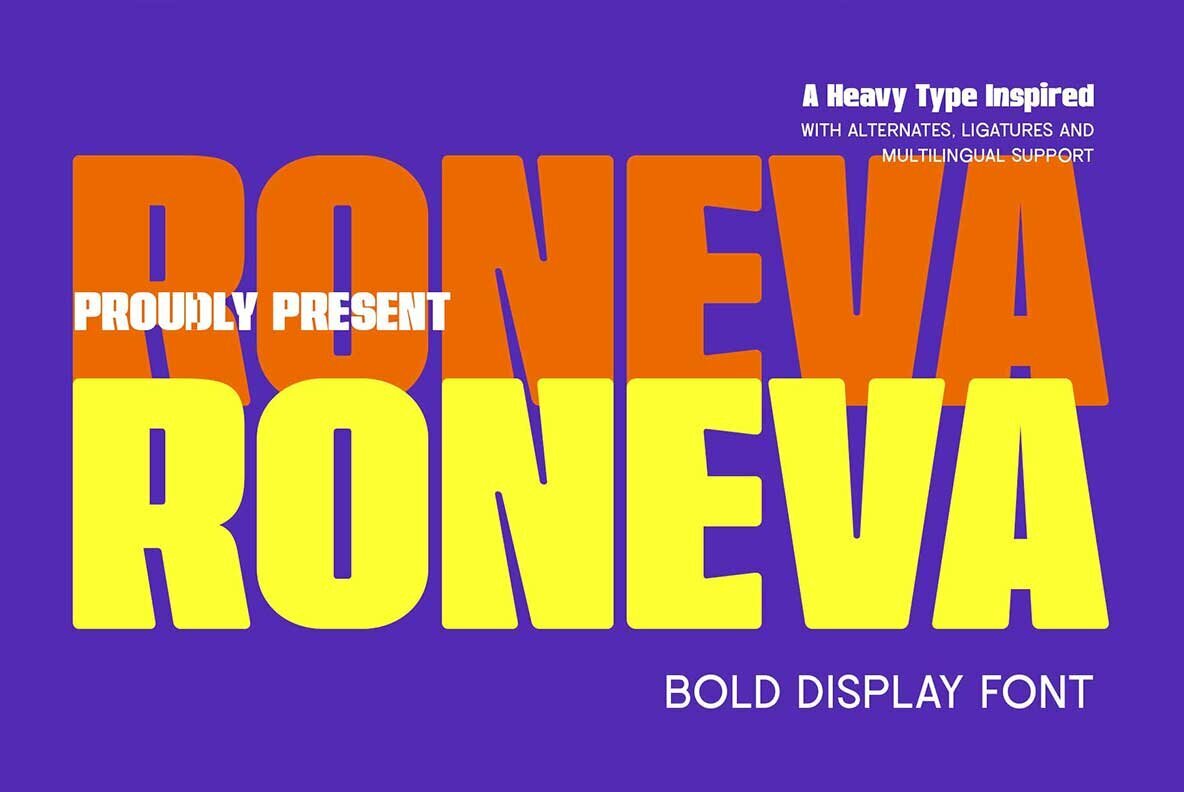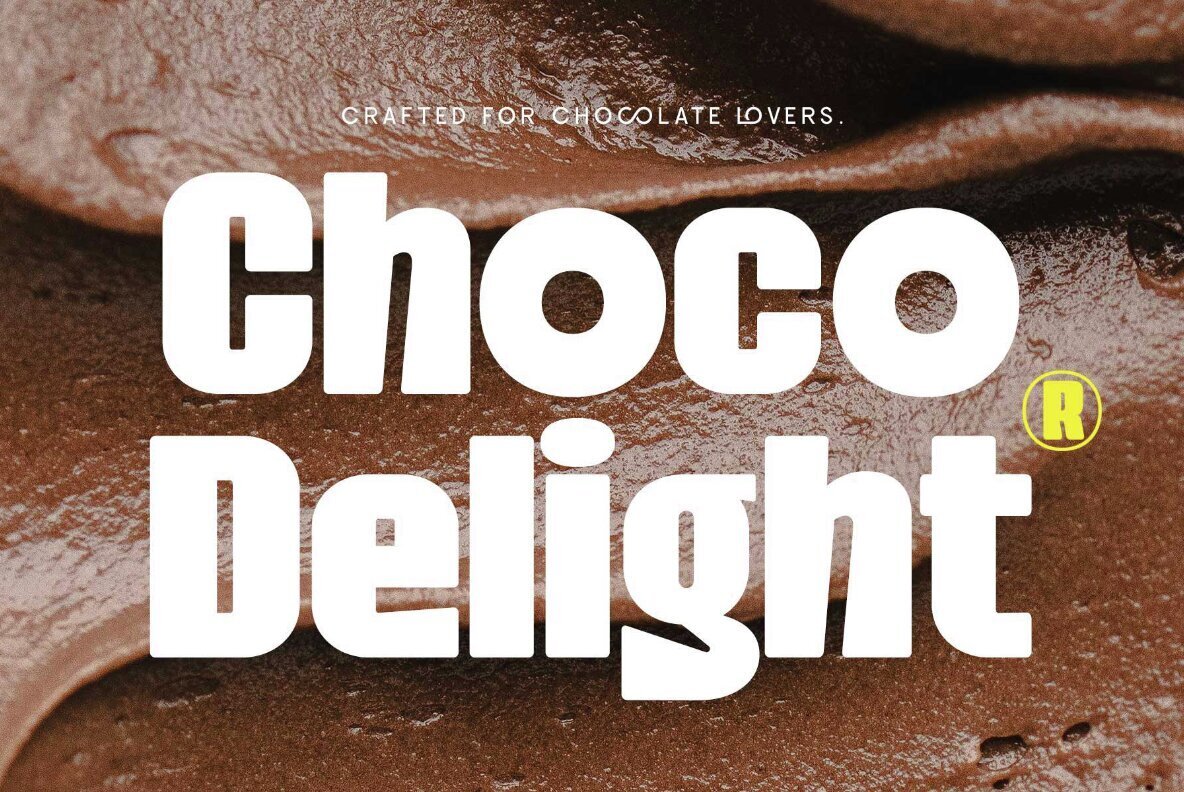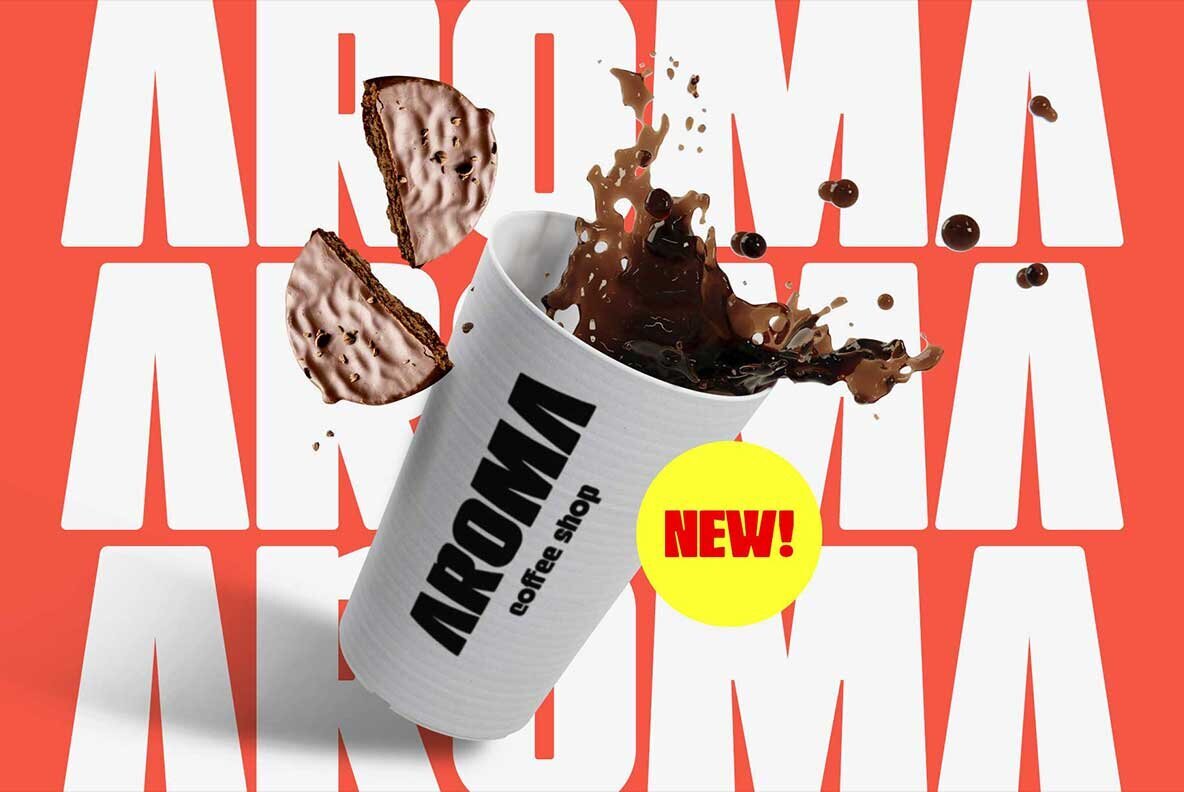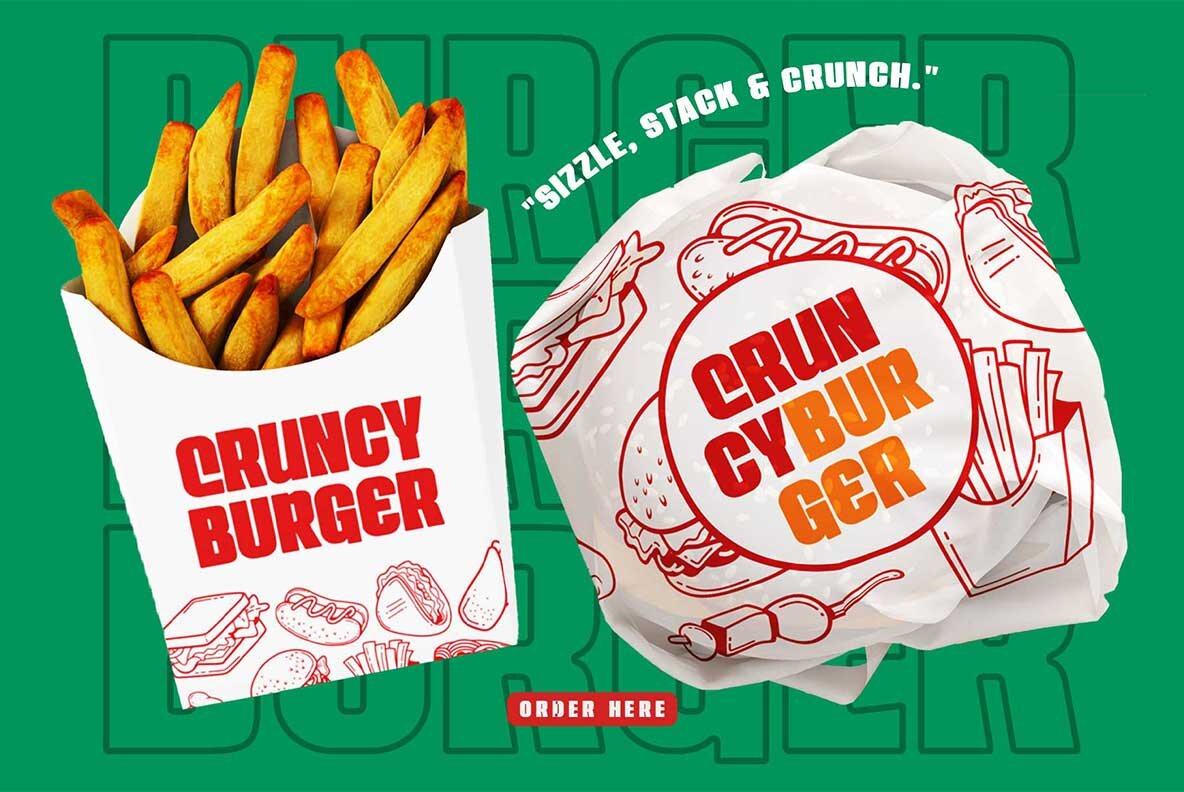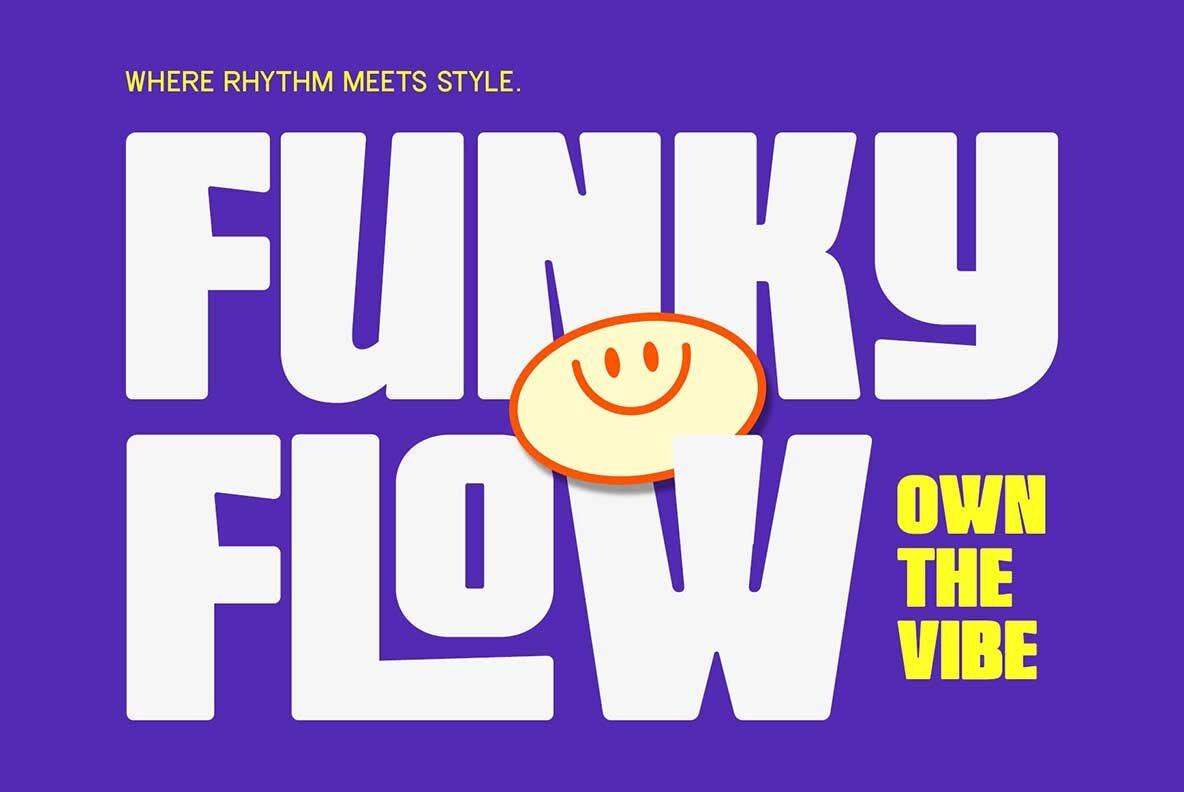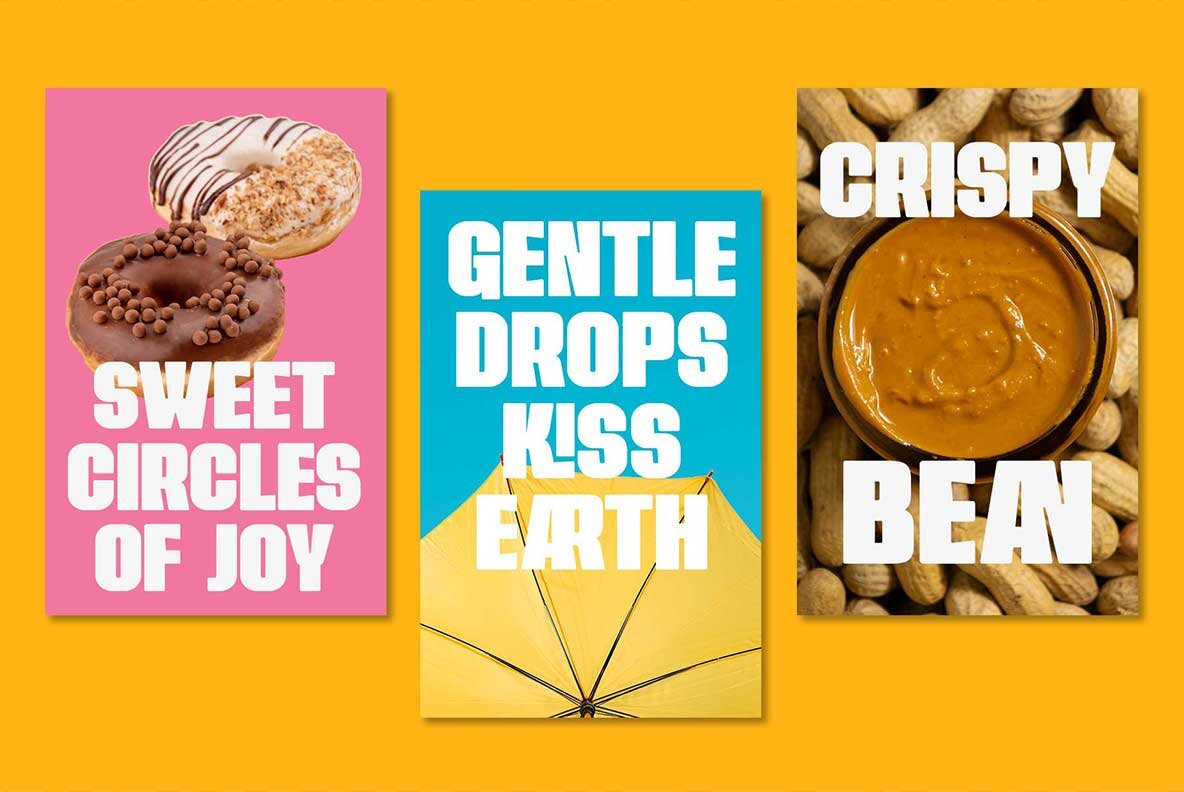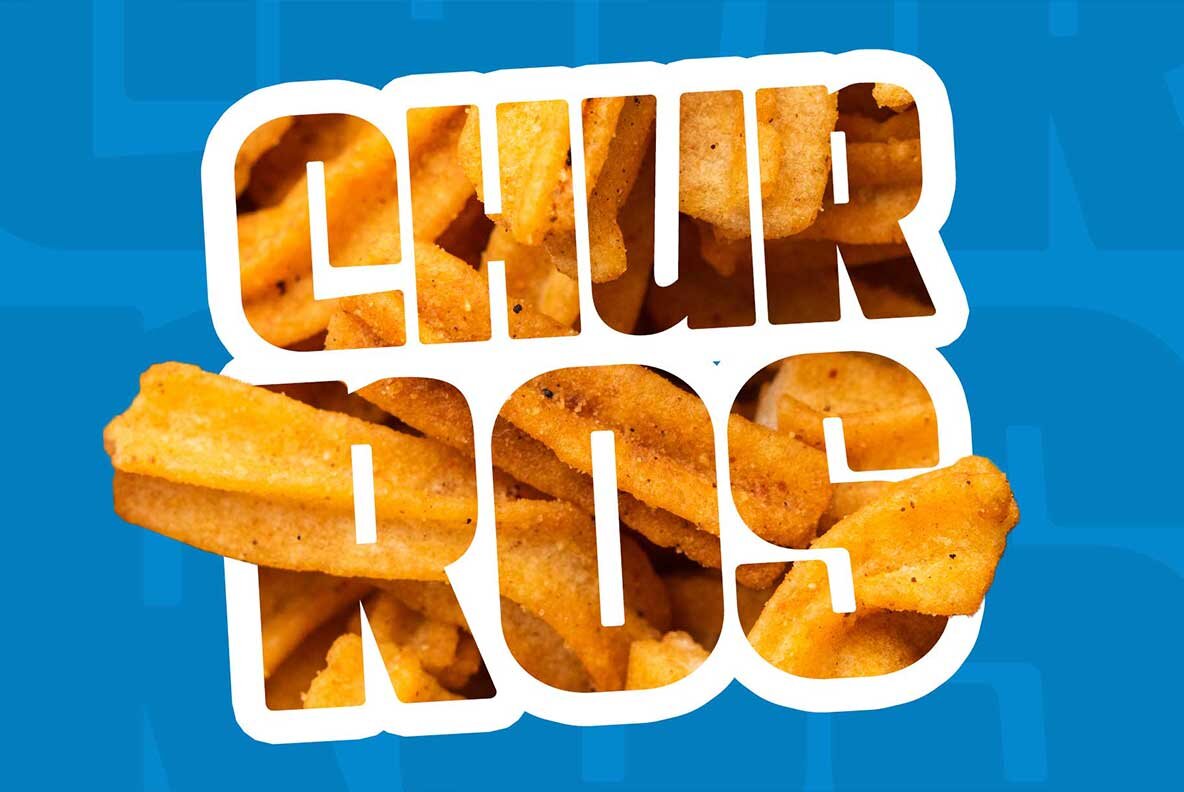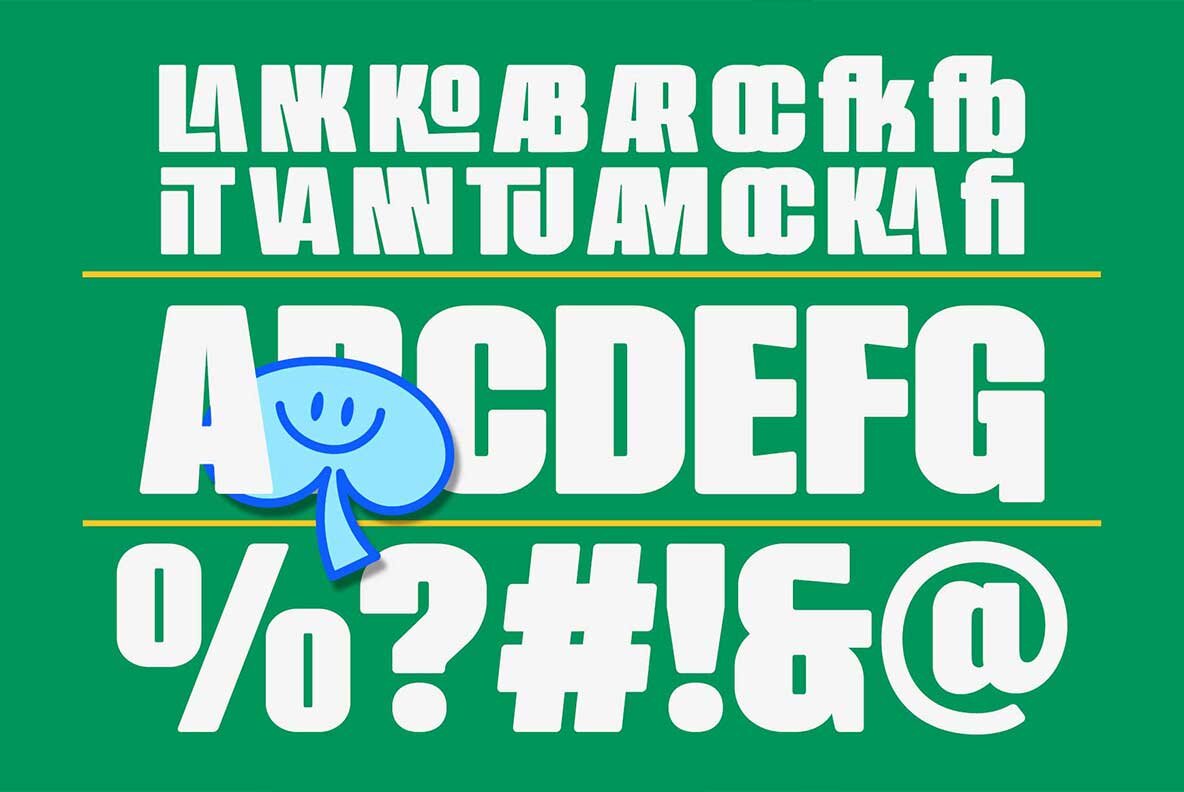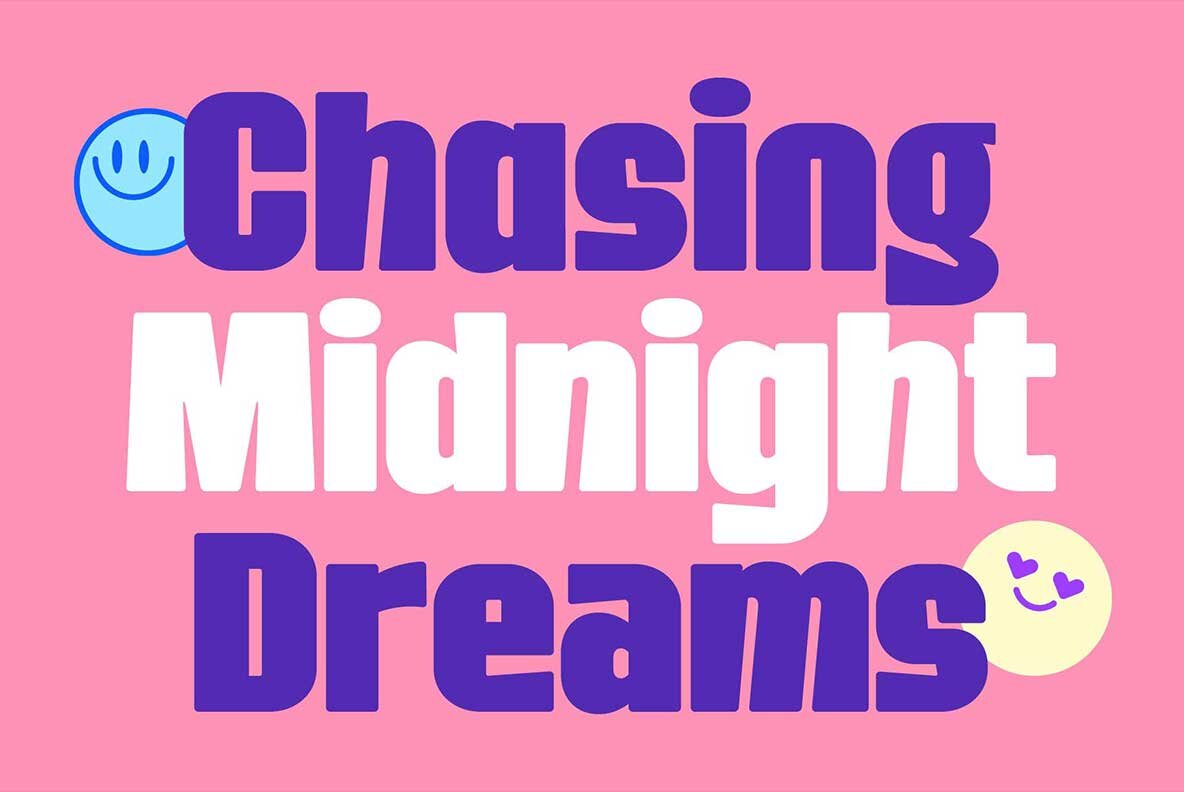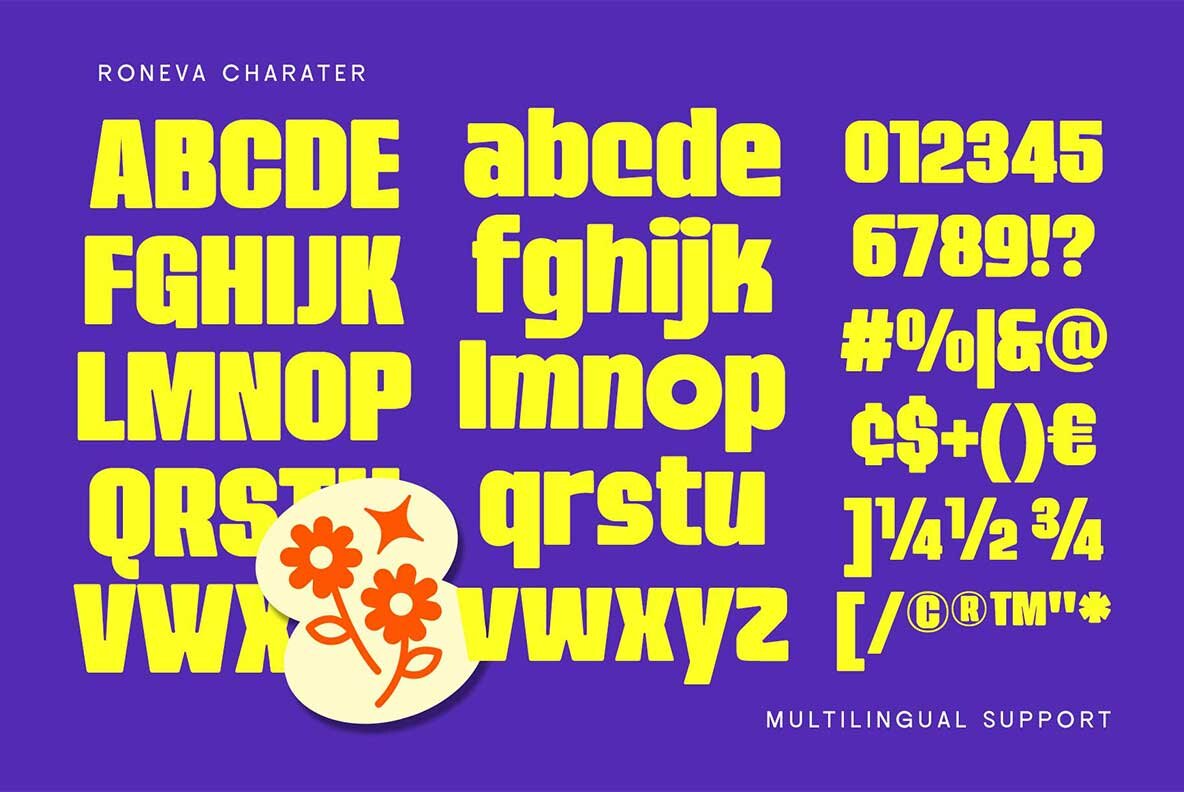
Roneva Font
Roneva Regular
Infuse your designs with energy and charm using Roneva, a sans serif font with a distinctive, funky style. Its bold letterforms and dynamic curves make it an ideal choice for projects that require a confident, vibrant aesthetic. Roneva goes beyond mere typography—it's a statement. The striking tall letters, paired with unique alternates and imaginative ligatures, bring a lively rhythm to your text, enlivening each word with a distinctive voice. Whether for posters, logos, branding, packaging, or social media graphics, Roneva delivers retro-inspired flair to capture immediate attention. This typeface is a must-have for creatives looking to make their designs resonate with personality and style.Roneva: A Bold and Playful Condensed Sans Serif